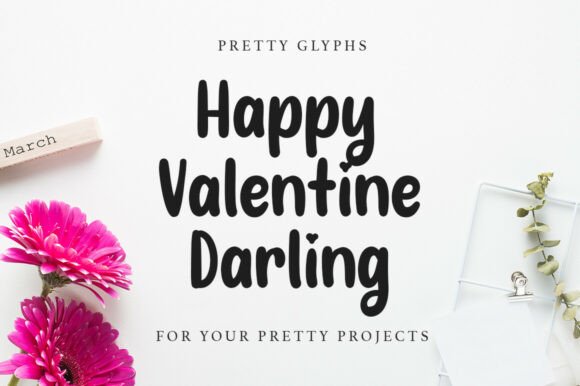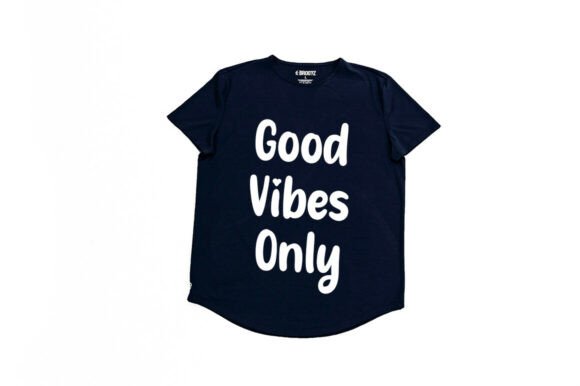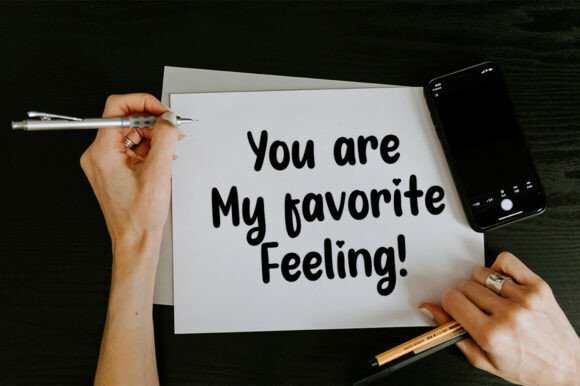
Introducing Amira Font: Unleash the Power of Dramatic Expression and Effortless Style
Are you tired of using generic, overused fonts that fail to capture the essence of your brand or creative project? Look no further than Amira Font, a handcrafted, handwritten brushed font that embodies the perfect blend of authenticity, individuality, and modern aesthetic sensibilities. With Amira Font, you can add a touch of drama and elegance to your design work, setting you apart from the crowd and making your message unforgettable.
The Art of Handcrafted Typography
Amira Font is a masterpiece of handcrafted typography, where every line and curve has been carefully crafted to capture the dynamic movement and organic strokes of genuine brush lettering. The textured, handcrafted details that adorn each character imbue a strong sense of character and freedom, breathing life and creativity into every piece of your design work. Whether you’re a designer, crafter, or simply a creative enthusiast, Amira Font is the perfect tool to help you express yourself with confidence and style.
Where Casualness Meets Modern Aesthetic Sensibilities
Amira Font is the result of a beautiful amalgamation of the carefree nature of casualness and modern aesthetic sensibilities. This unique blend gives birth to a font that is not only visually stunning but also effortlessly stylish. With Amira Font, you can create designs that are both bold and sophisticated, perfect for those who dare to be different and make a statement. Whether you’re working on a branding project, social media graphics, or simply a personal creative endeavor, Amira Font is the perfect companion to help you unleash your creativity.
A World of Creativity at Your Fingertips
With Amira Font, a world of creativity unfolds before you, teeming with strong personality, vibrancy, and artistic flair. This font is designed to help you package your thoughts and ideas in a manner that’s not just confident but strikingly unforgettable. Whether you’re looking to create a bold brand identity, craft a compelling social media post, or simply add a touch of elegance to your design work, Amira Font is the perfect tool to help you achieve your creative vision.
Amira Font is a perfect fit for designers and crafters who are looking to add a touch of drama and elegance to their work. With its unique blend of handcrafted typography and modern aesthetic sensibilities, Amira Font is ideal for a wide range of creative projects, including:
- Branding and logo design
- Invitations and event planning
- Stationery and paper crafts
Why Choose Amira Font?
So why choose Amira Font over other fonts? Here are just a few reasons why Amira Font stands out from the crowd:
- Unique and authentic: Amira Font is a handcrafted, handwritten brushed font that captures the essence of genuine brush lettering.
- Effortlessly stylish: Amira Font combines the carefree nature of casualness with modern aesthetic sensibilities, making it perfect for those who want to make a statement.
- Versatile: Amira Font is suitable for a wide range of creative projects, from branding and social media graphics to packaging and stationery.
- High-quality: Amira Font is crafted with attention to detail, ensuring that every character is of the highest quality.
In conclusion, Amira Font is a game-changer for designers and crafters who want to add a touch of drama and elegance to their work. With its unique blend of handcrafted typography and modern aesthetic sensibilities, Amira Font is the perfect tool to help you unleash your creativity and make a statement. Whether you’re working on a branding project, social media graphics, or simply a personal creative endeavor, Amira Font is the perfect companion to help you achieve your creative vision. So why wait? Indulge in this masterpiece that screams originality and energy, and experience the power of dramatic expression and effortless style for yourself.